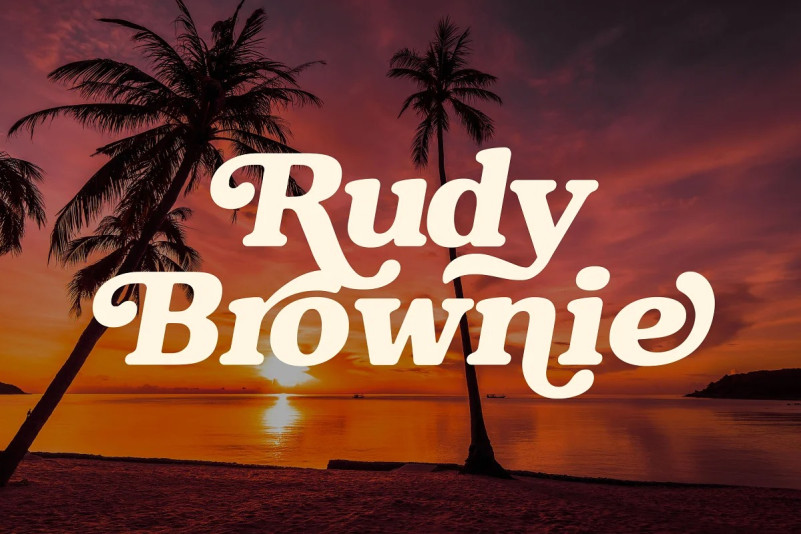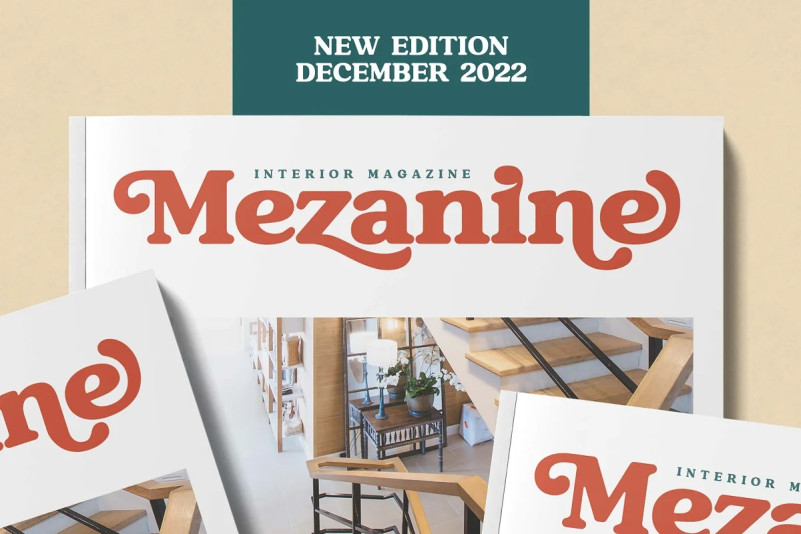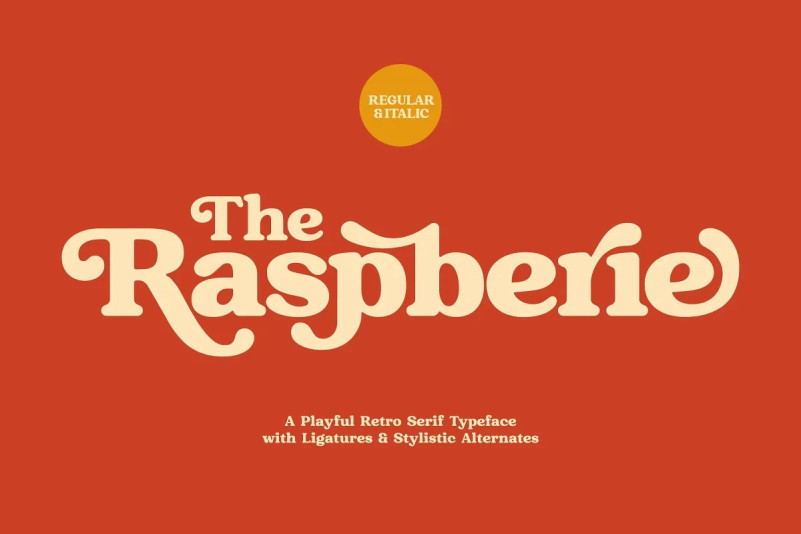
Raspberie Font
Raspberie Serif Font is a special font that was designed carefully with love and passion for a classic & retro design theme. You can play with this font for a large scoop of media such as poster design, graphic design, logotype, packaging design, branding, and whatever you want. Contains more than 300 glyphs, 98 stylistic alternates, and 23 ligatures to produce a retro look and playful design. Comes with 2 styles, regular and italic, go upgrade your design creativity with Raspberie.